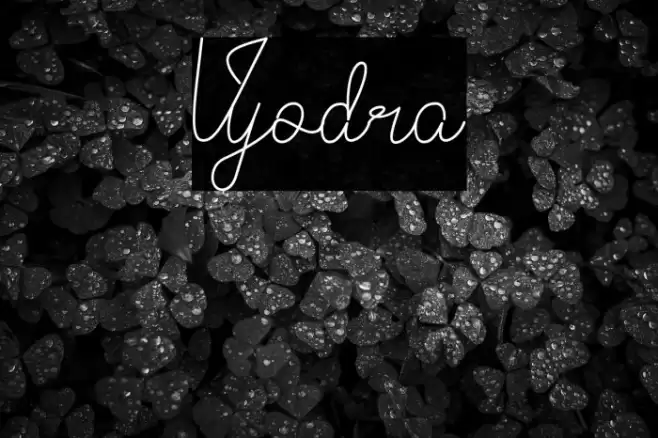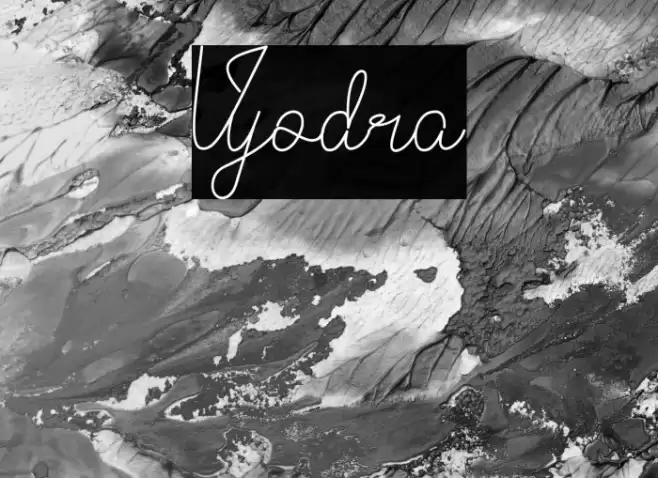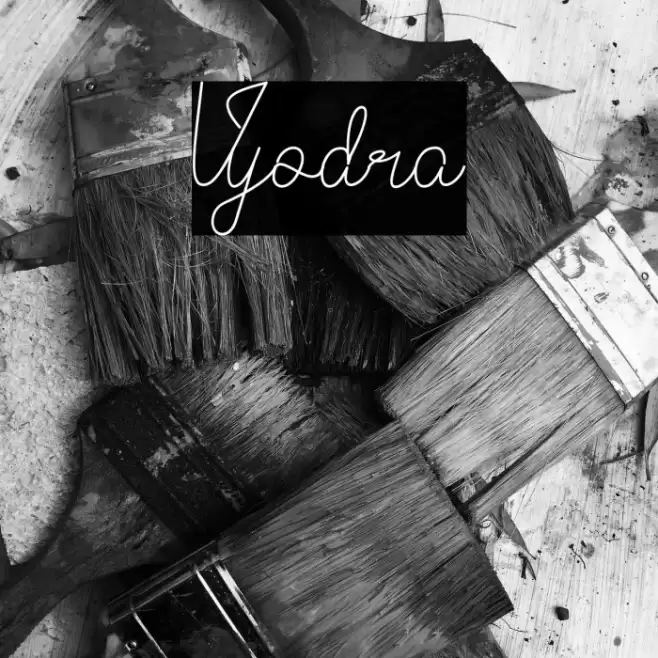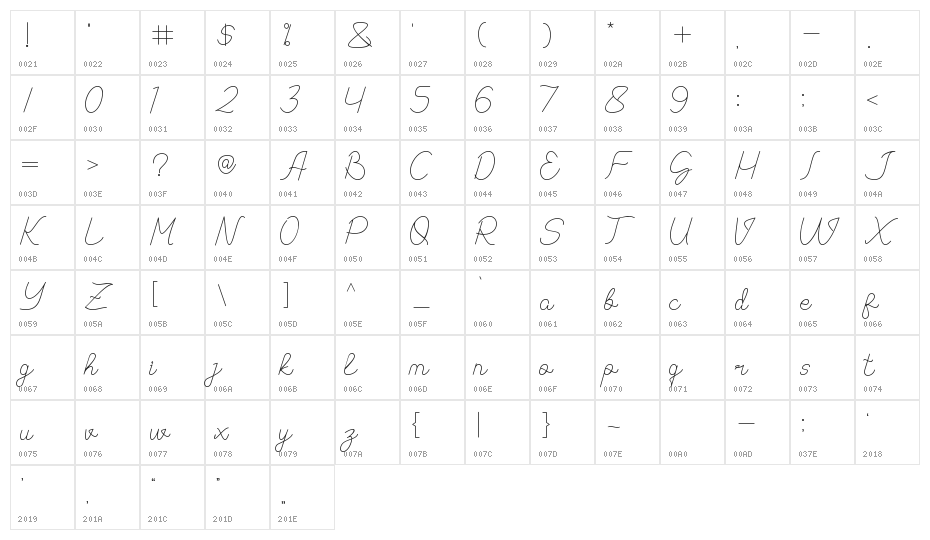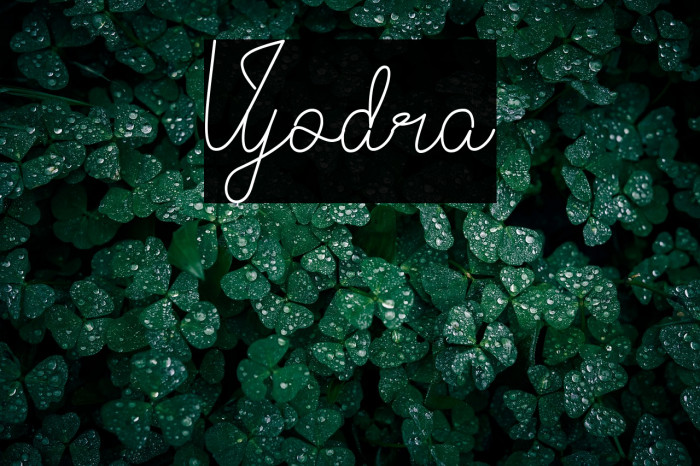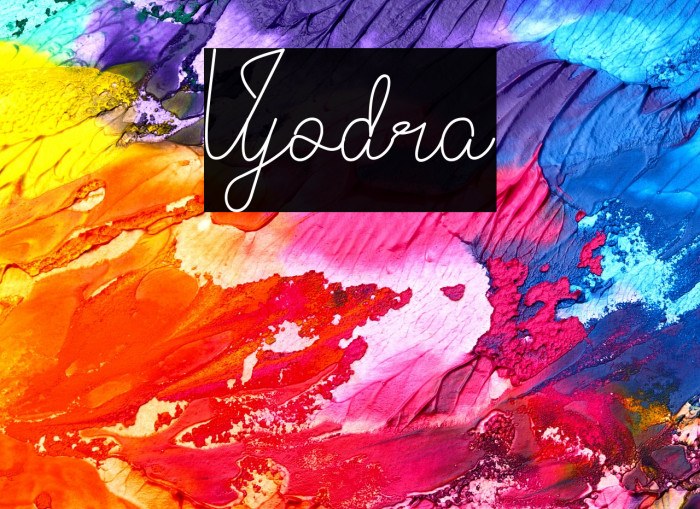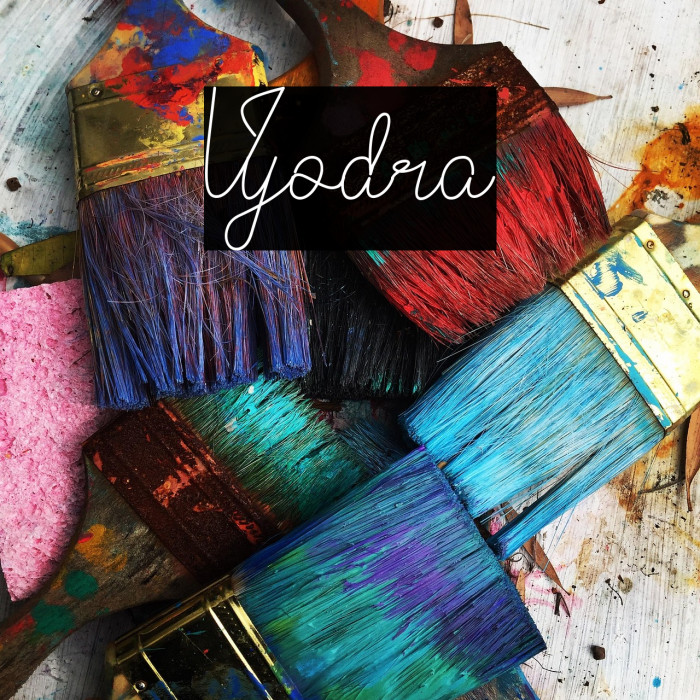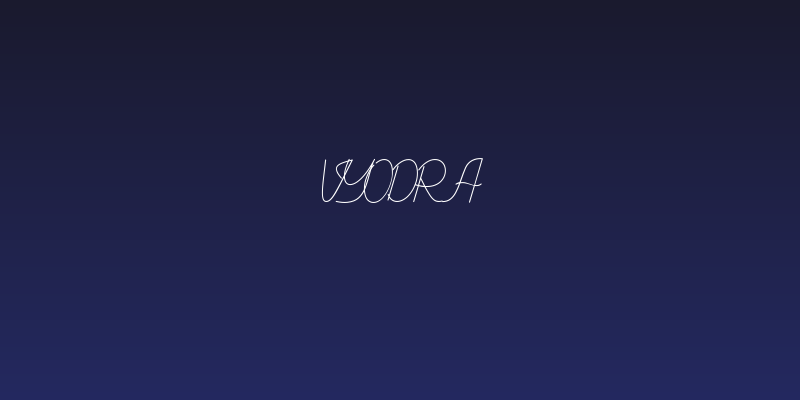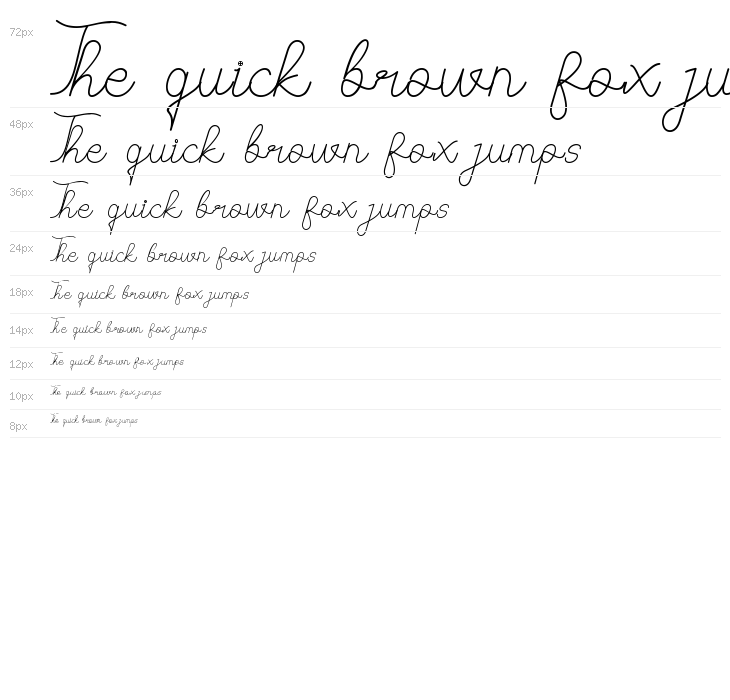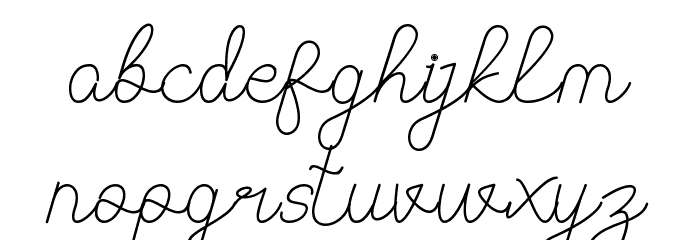
Vyodra Font
Vyodra Description
This elegant script font features a flowing, cursive style with smooth, continuous strokes that mimic the fluidity of handwriting. The uppercase letters are gracefully elongated, while the lowercase letters maintain a consistent, rounded form. The numerals are designed with a similar fluidity, ensuring a cohesive look across all characters. Special characters are integrated seamlessly, maintaining the font's overall aesthetic. The thin lines and delicate curves give it a refined and sophisticated appearance, making it suitable for formal and decorative applications.
An elegant, flowing script font with smooth, continuous strokes from Uncategorized fonts.
- Proposed Projects: Ideal for wedding invitations, elegant branding, greeting cards, and decorative projects.
- Weight: Light
- Overall Style: Elegant, Decorative
- Use Case: Logos, Invitations, Decorative text